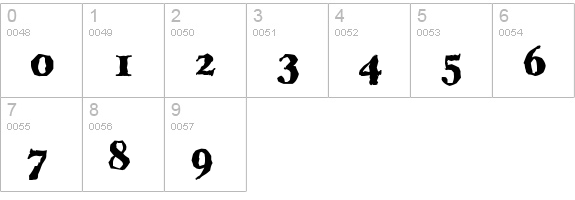
CasablancaRandom-Heavy-Regular Font Details
CasablancaRandom-Heavy-Regular is a heavy, high-impact variant in the CasablancaRandom typeface family \xE2\x80\x94 well suited to high-impact headlines, posters, and display advertising.
CasablancaRandom-Heavy-Regular font is a bold and dynamic typeface that exudes a sense of modernity and uniqueness. Its random and playful design adds a touch of creativity to any project, making it perfect for eye-catching headlines, logos, and branding materials. The heavy weight of the font commands attention and makes a strong visual impact. What sets CasablancaRandom-Heavy-Regular font apart is its versatility - it can be used in a variety of design styles, from minimalist to bold and vibrant. This font is sure to make your designs stand out and leave a lasting impression on viewers. Best of all, CasablancaRandom-Heavy-Regular font is completely free to download at FontsMarket.com. So why wait? Add this striking font to your collection today and take your designs to the next level!